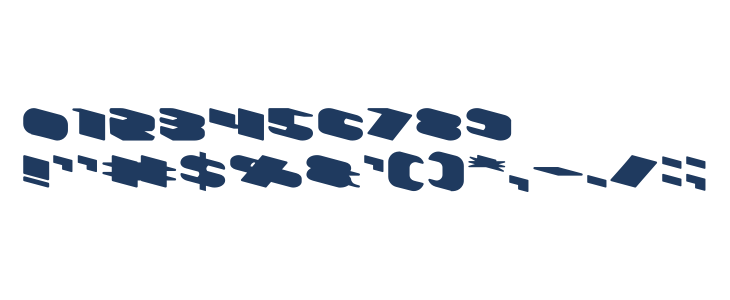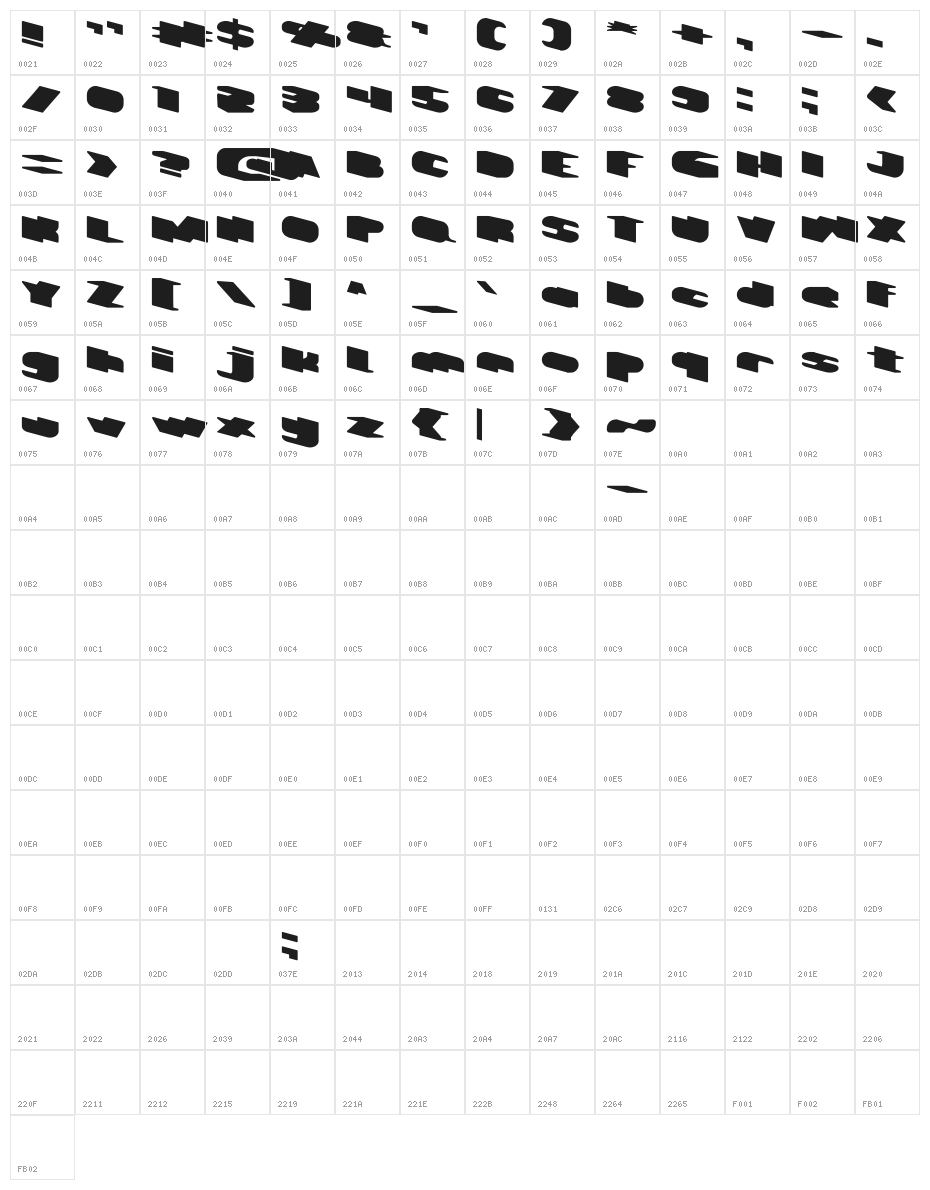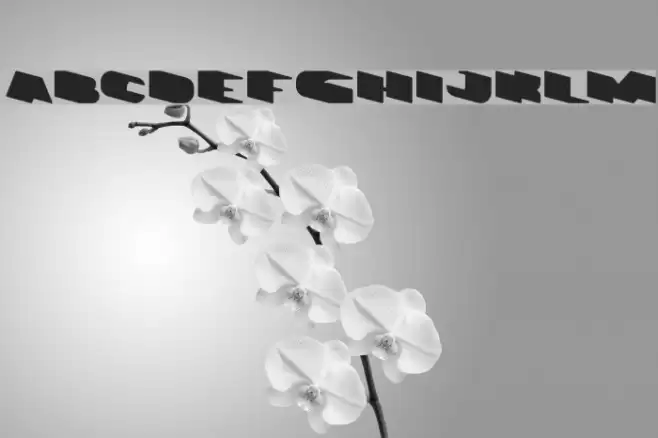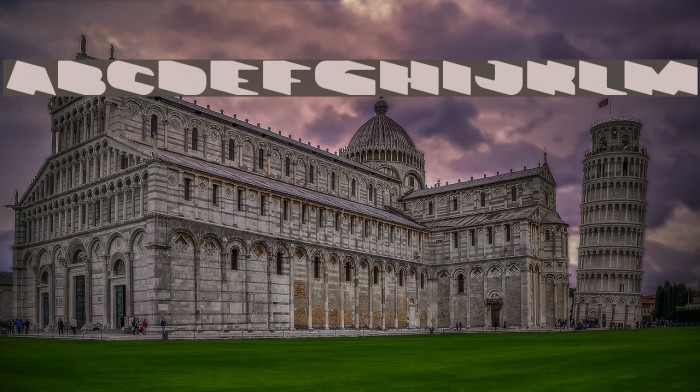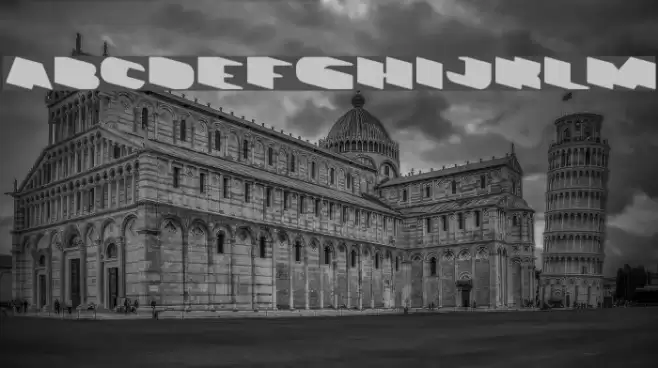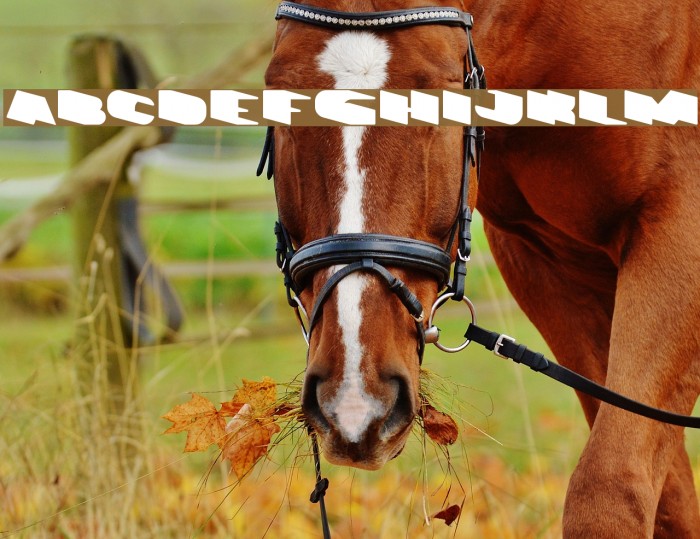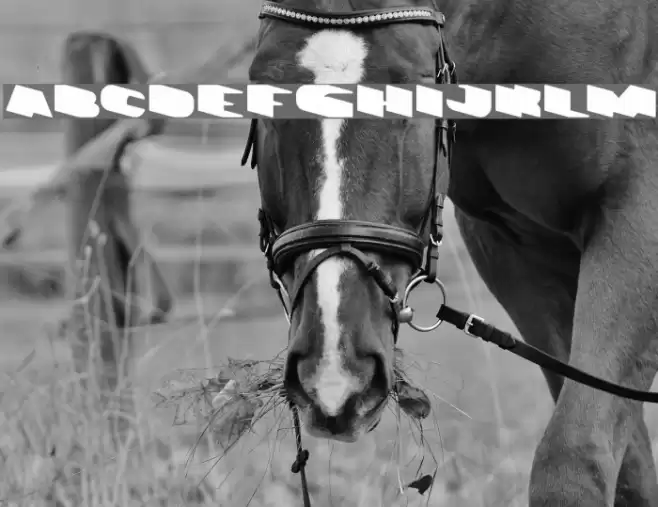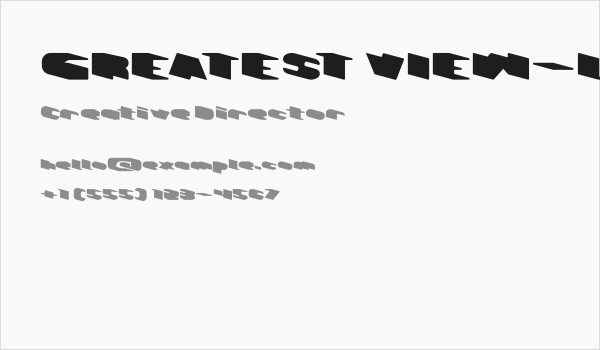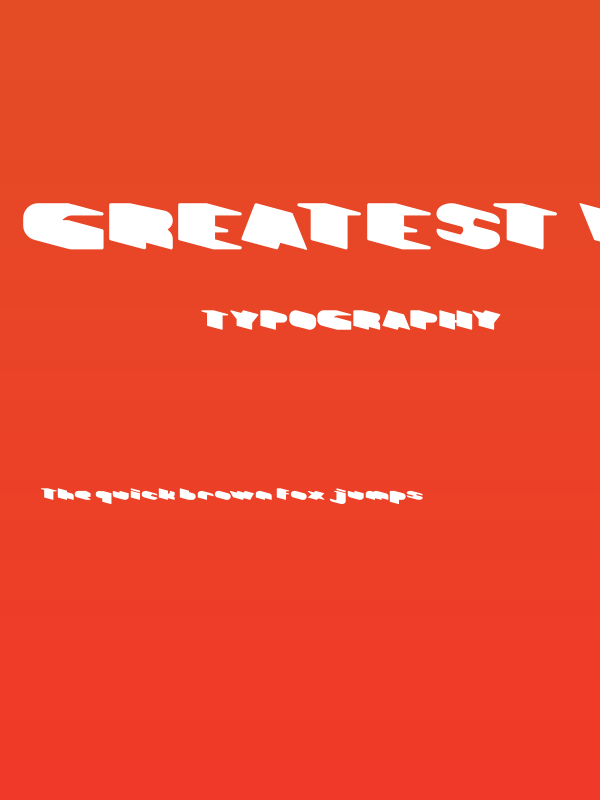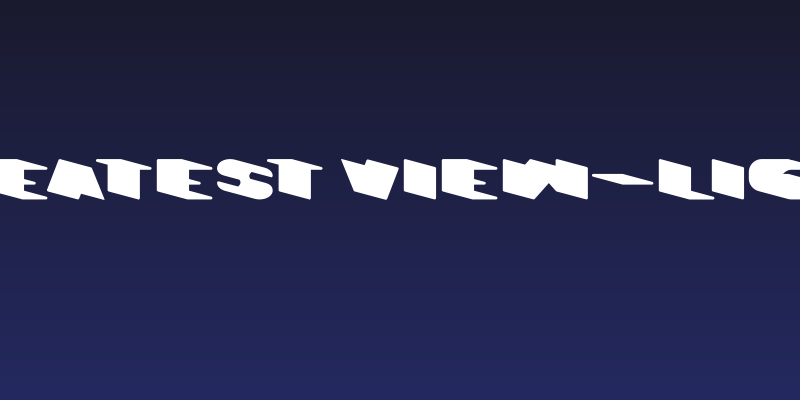
GREATEST VIEW-light Font
GREATEST VIEW-light Description
This font features a bold and dynamic design with a strong visual impact. The characters are heavily stylized, with sharp angles and a sense of motion, giving it a futuristic and edgy appearance. The uppercase and lowercase letters maintain a consistent style, while the numbers and special characters complement the overall aesthetic. The font's unique design makes it stand out, ideal for projects that require a modern and eye-catching look.
| Proposed Projects | Ideal for branding, posters, album covers, and any project needing a modern, standout typeface. |